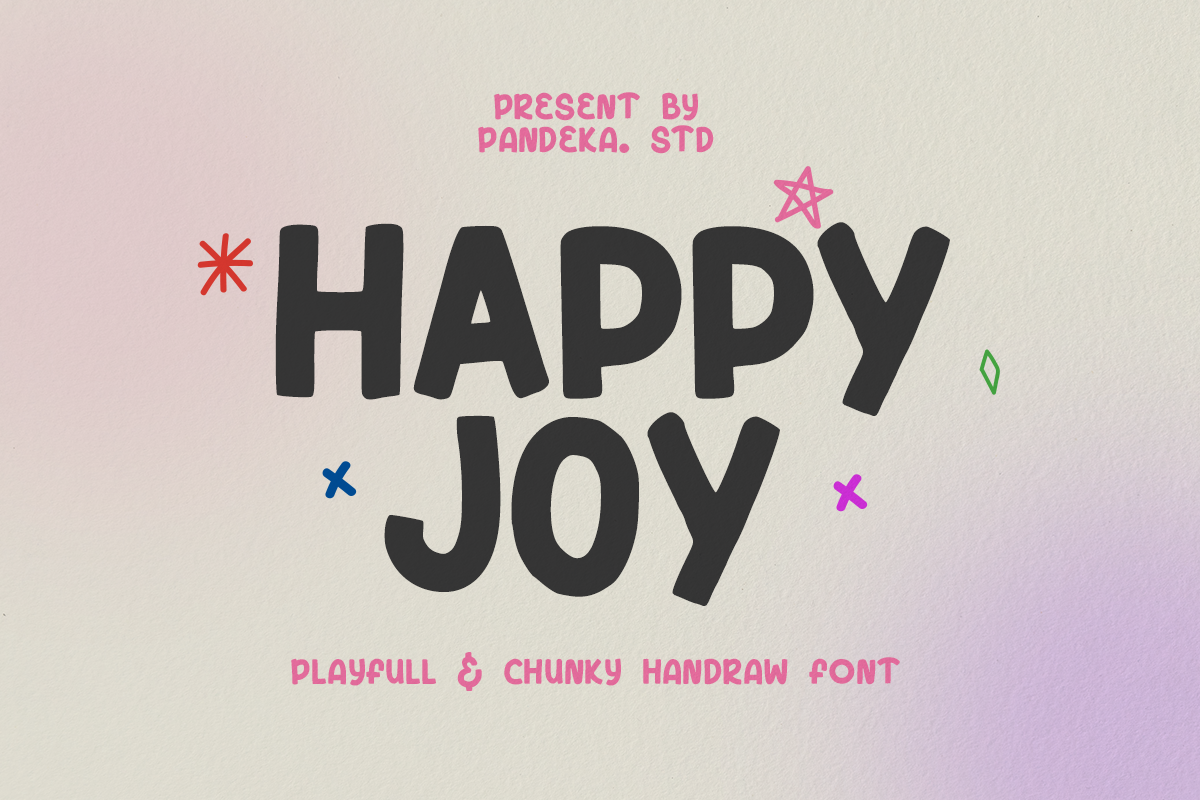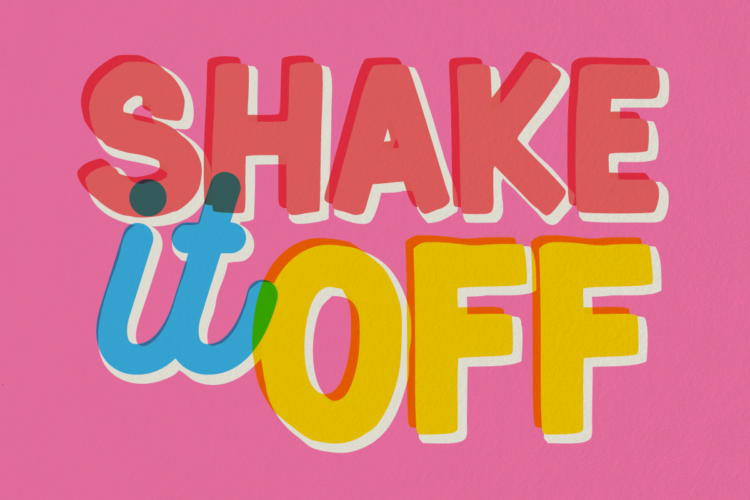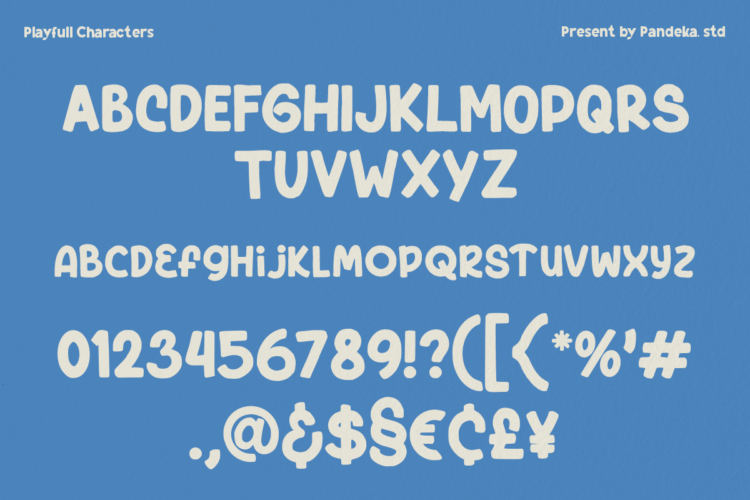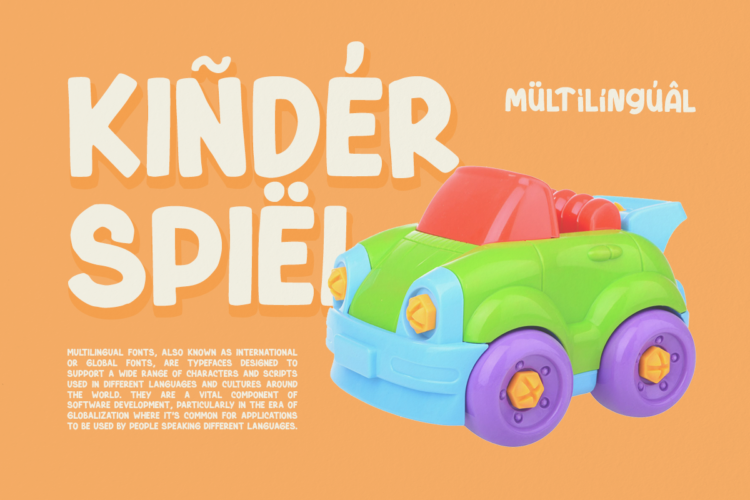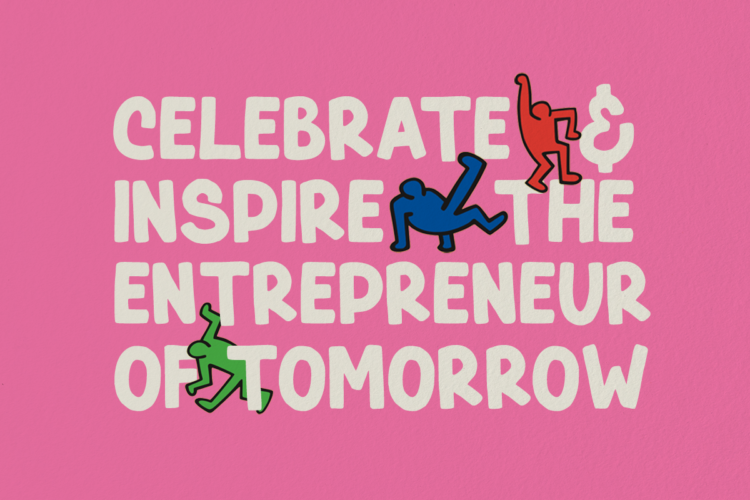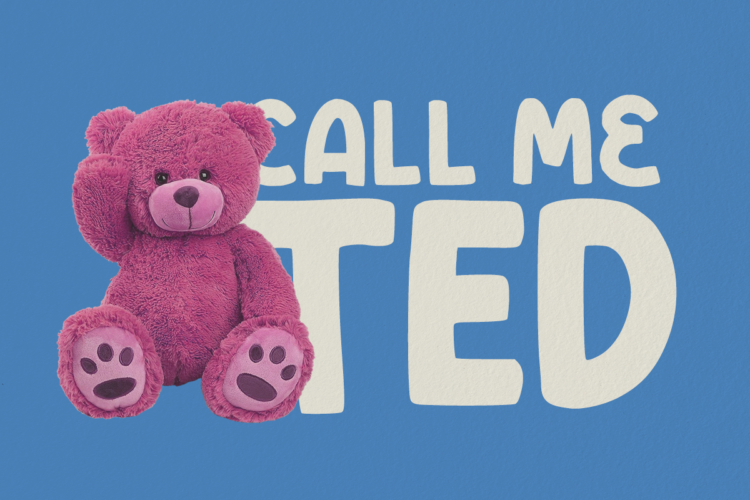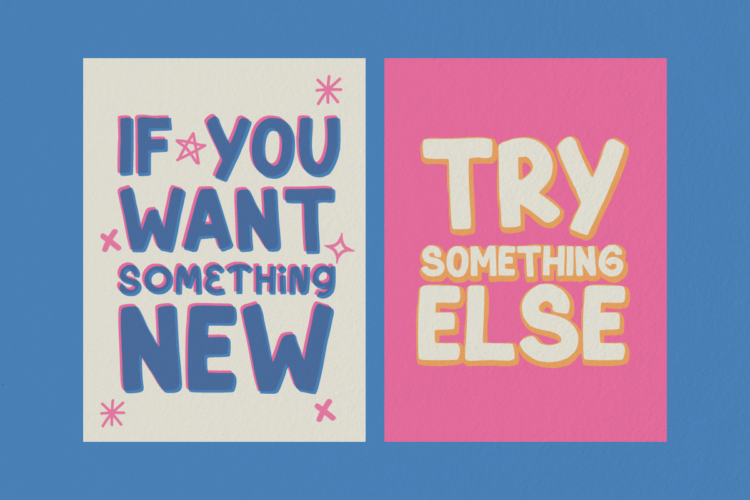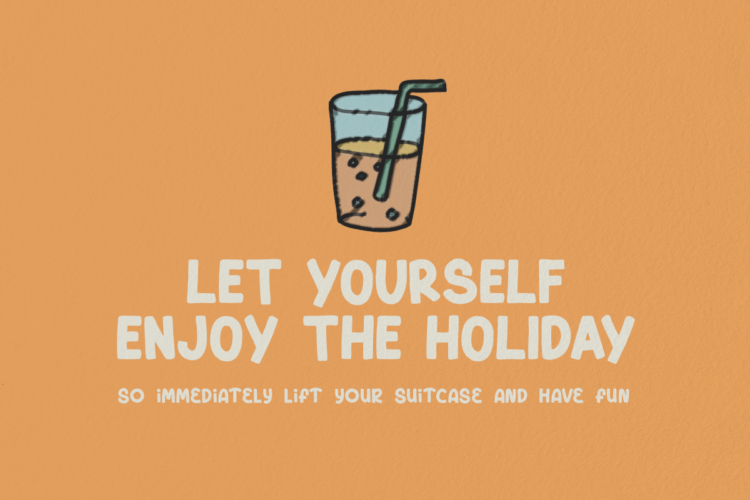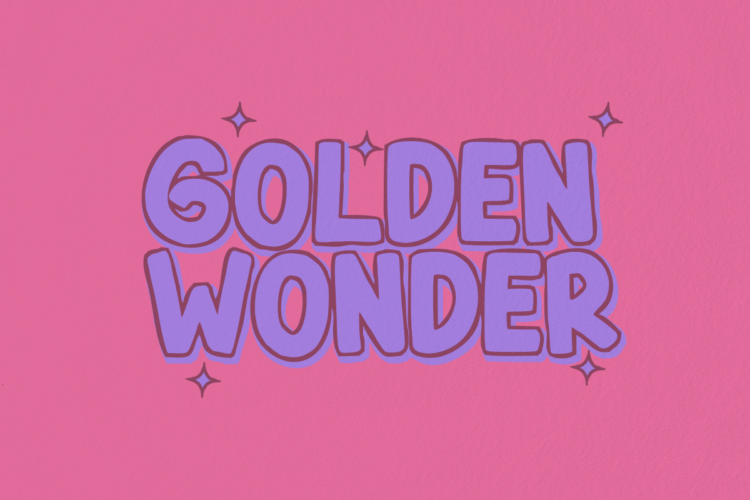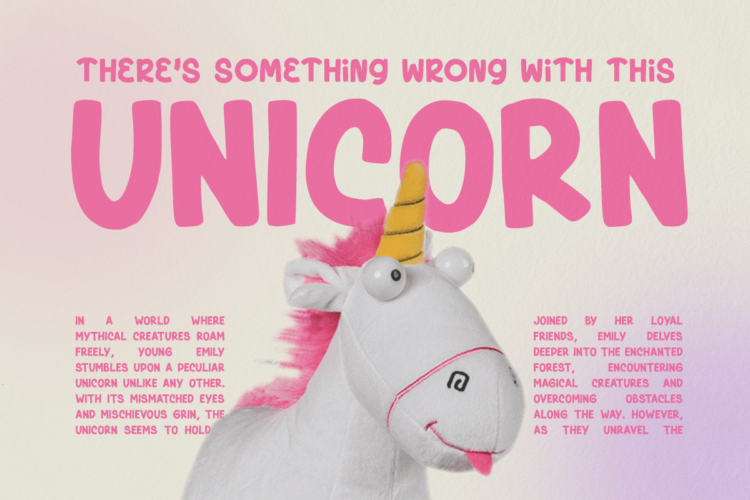
Happy Joy
Introducing Happy Joy – A playful, chunky font and graphics!
This adorable all caps font is perfect for creating fun instagram posts, greeting cards, stickers (hello small business owners!). Comes with a few ligatures to ensure a perfectly bouncy little font that flows nicely 🙂
• Unique Gylph Letters